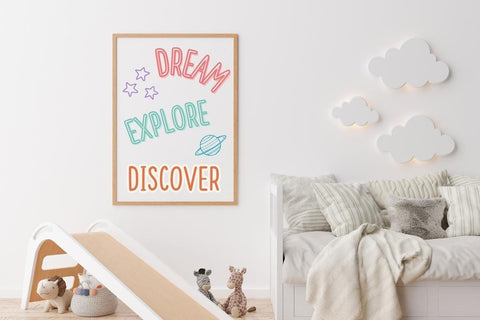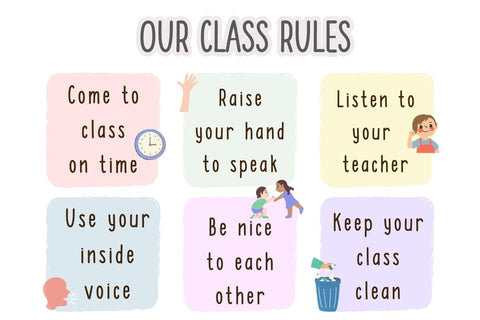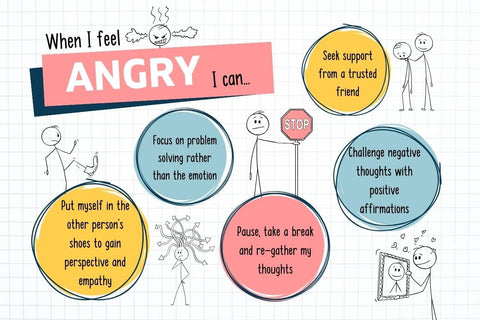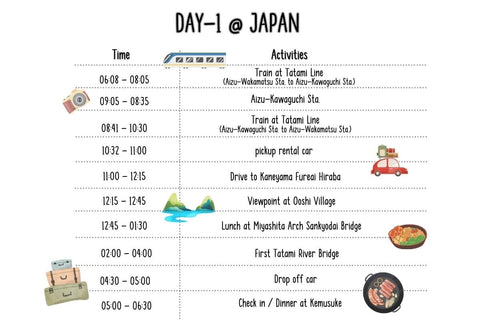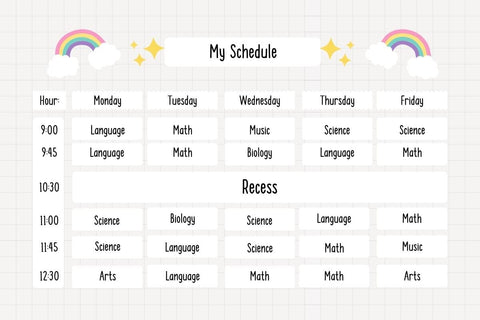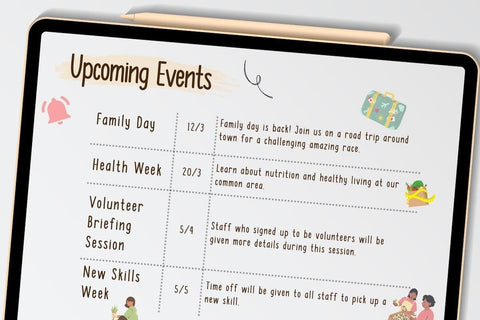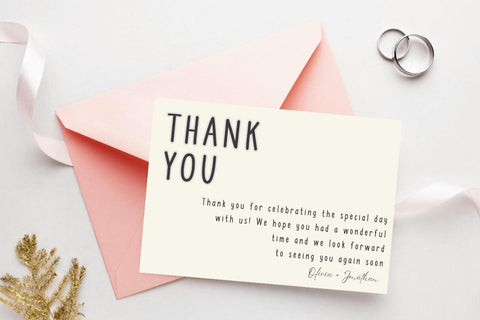
Small Room - Clean Handwriting Font
Small Room Font is a simple, neat handwritten font, perfect for digital note-taking. You can use this font in various projects – blog posts, logos, branding, digital planners, invitations, greeting cards, planners, photo albums, decorations, and much more.